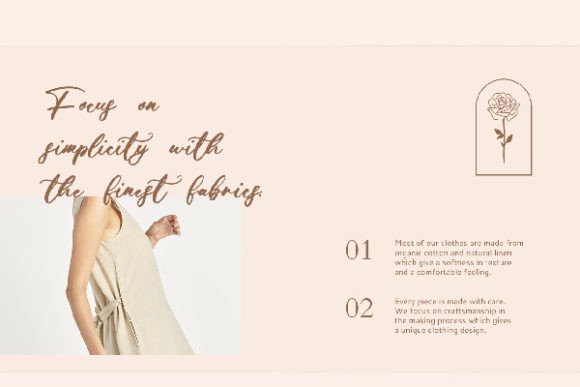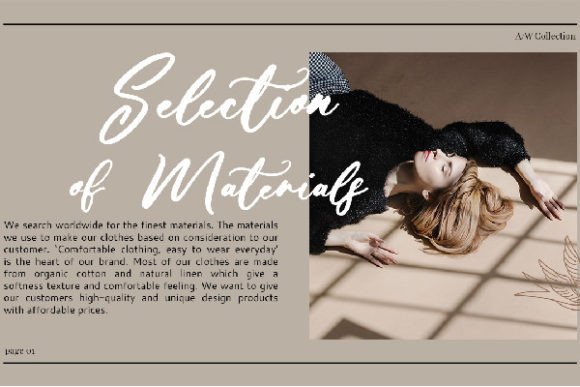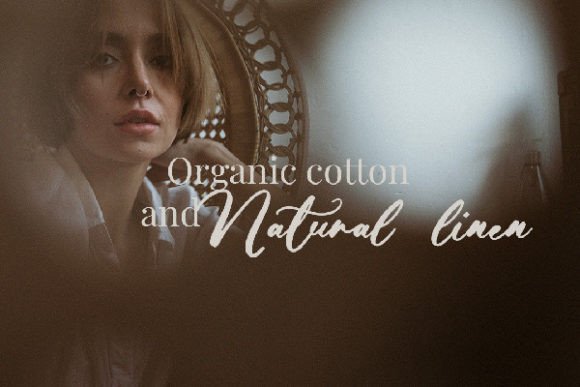
Introduction to Hardacre Churchill Font
The latest style letters are perfect for wall displays, wedding invitations, social media post logos, advertisements, product packaging, product designs, labels, photography, watermarks, invitations, stationery, and any project that requires a taste for handwriting.
Key Features of Hardacre Churchill Font
Why Choose Hardacre Churchill Font?
Hardacre Churchill Font offers exceptional quality and versatility, making it a valuable addition to your design toolkit. Whether you’re creating for personal projects or commercial use, Hardacre Churchill Font delivers professional results.